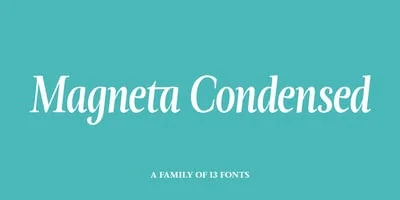
Magneta Condensed Font
The Magneta Condensed Font is excellent for space-efficient design projects including newspaper headlines, magazine layouts, poster designs, vertical signage, narrow web banners, mobile app interfaces, packaging labels, and compact advertising materials. This streamlined typeface maximizes readability while conserving valuable design space in any project requiring efficient typography solutions.
What makes Magneta Condensed Font so exciting is its ability to deliver maximum impact in minimal horizontal space without sacrificing legibility or visual appeal. The letters feature tall, narrow proportions with carefully balanced spacing that creates exceptional readability even at smaller sizes. This distinctive compression makes it perfect for designs where space is premium but clarity and impact remain essential.
The Magneta Condensed Font family typically includes multiple weights from light to black, complete with matching italic variations and ultra-condensed options. Many versions feature extended character sets, professional OpenType features, and specialized glyphs that enhance its functionality for international and technical applications.
Whether you're working on editorial layouts, urban signage, or mobile interfaces, Magneta Condensed Font provides the perfect solution for designers facing space constraints while maintaining typographic excellence. This font transforms cramped text areas into clean, readable designs that communicate efficiency, modernity, and professional attention to spatial optimization.